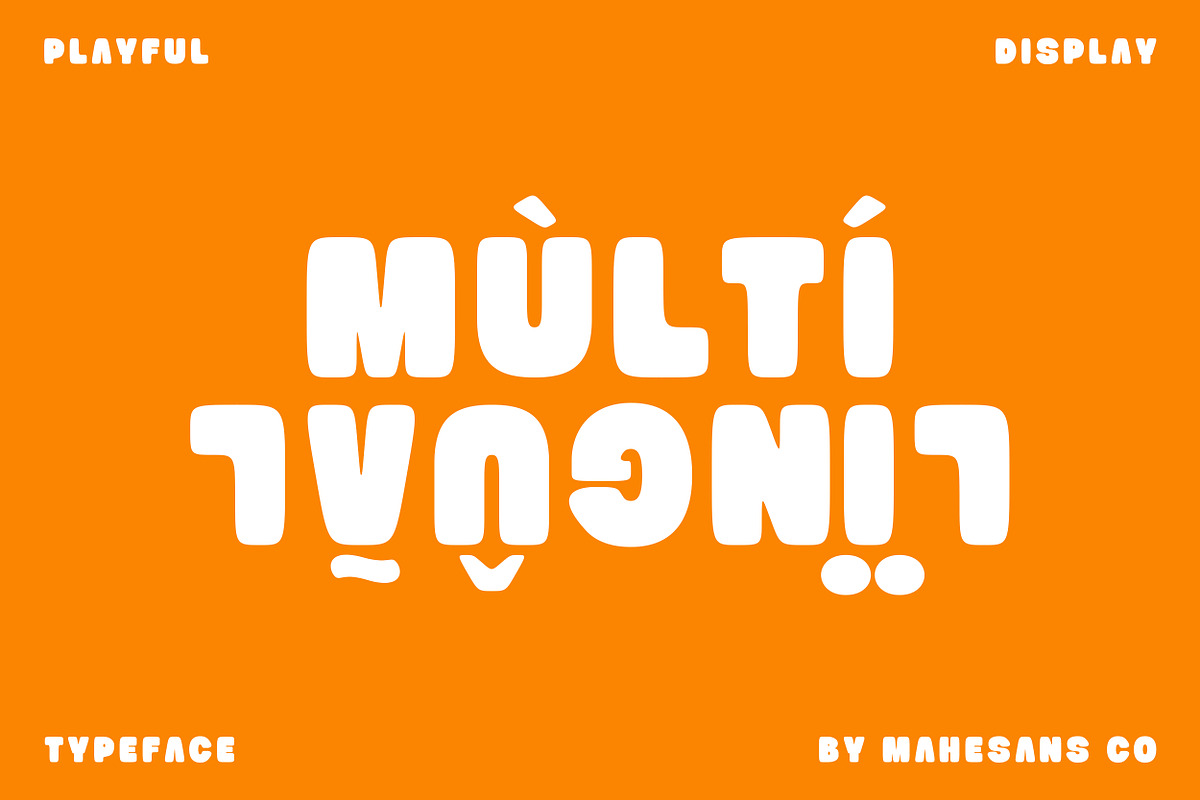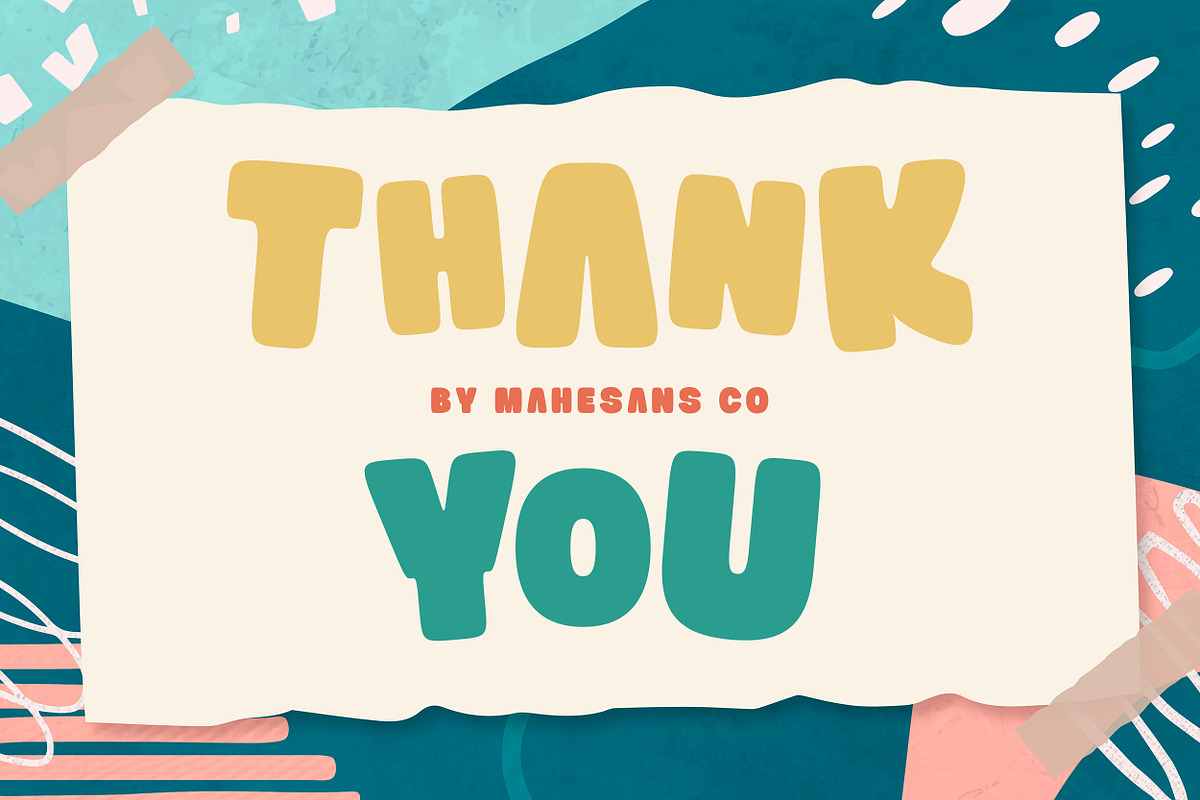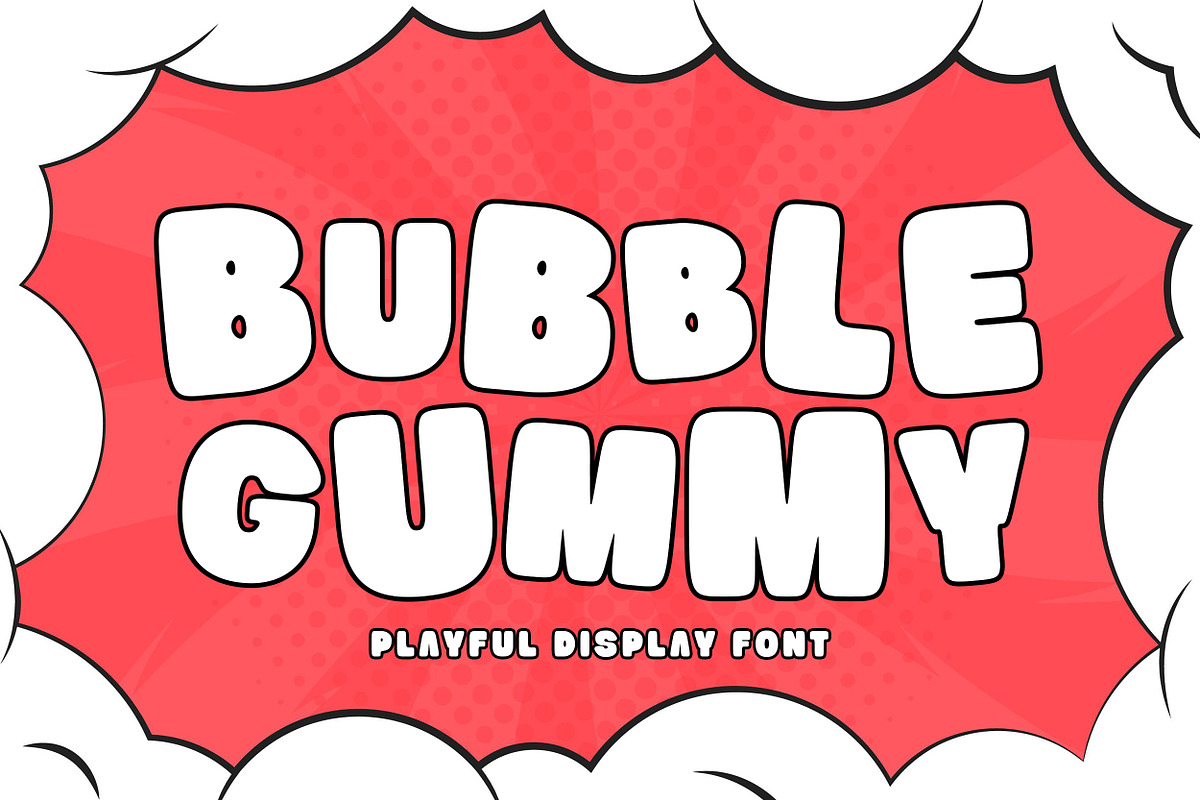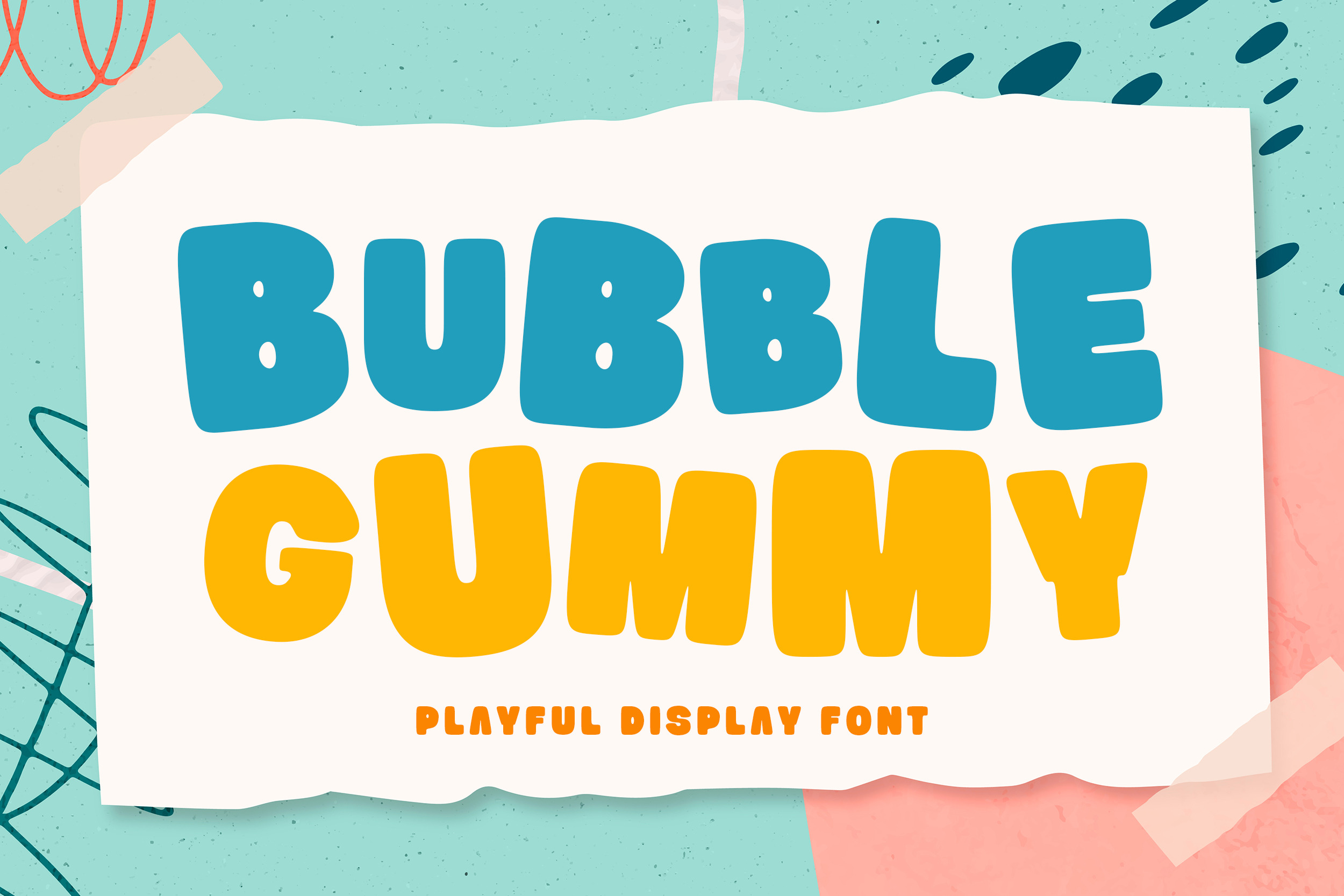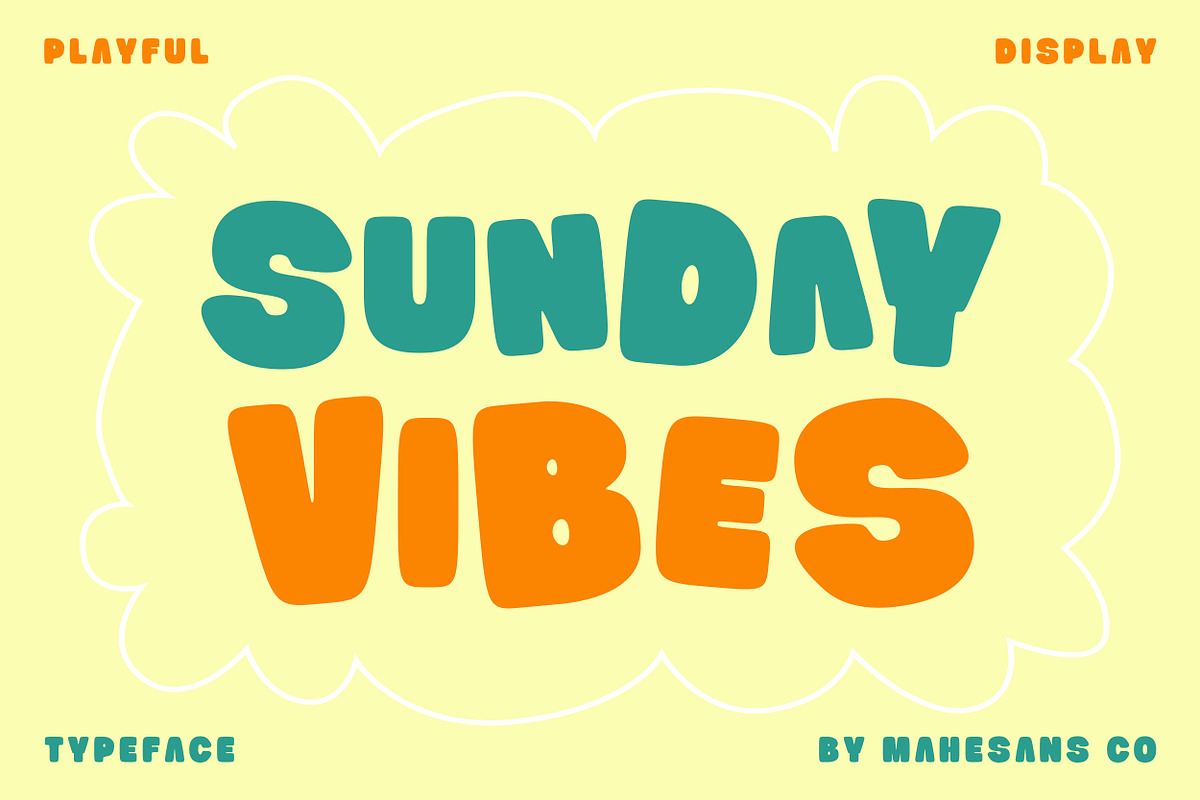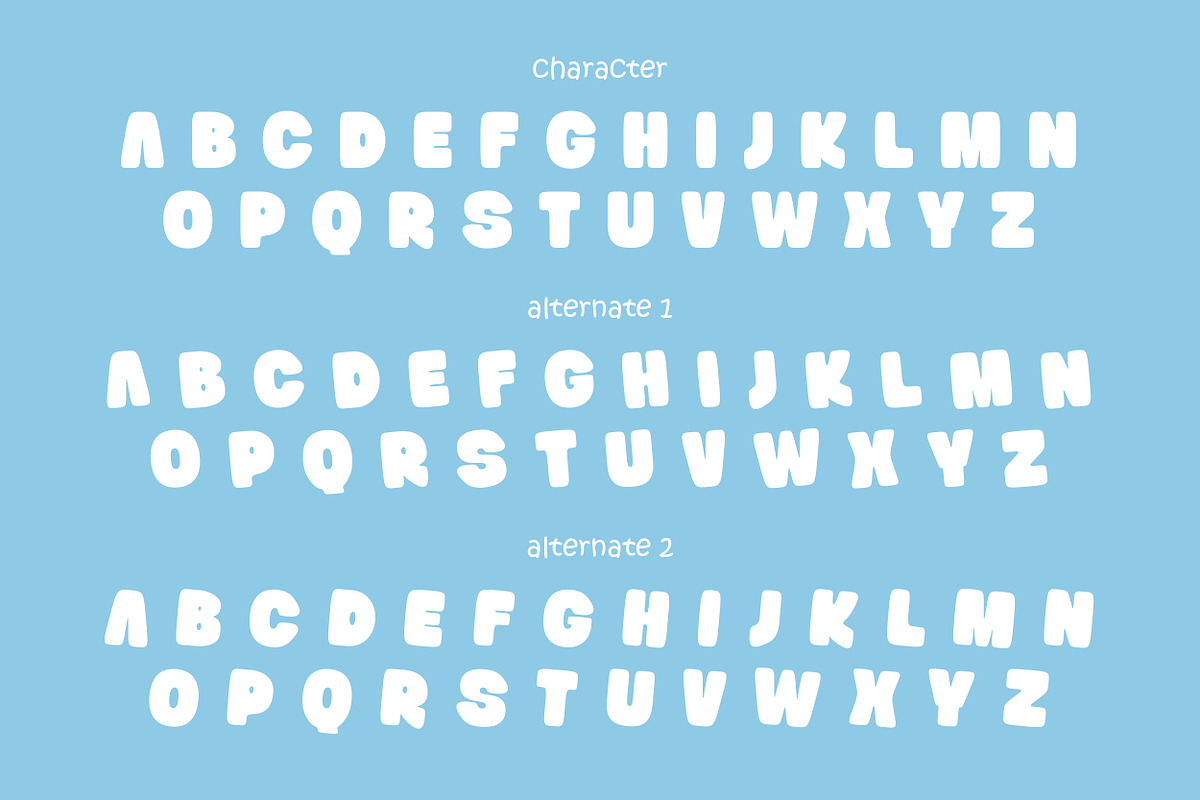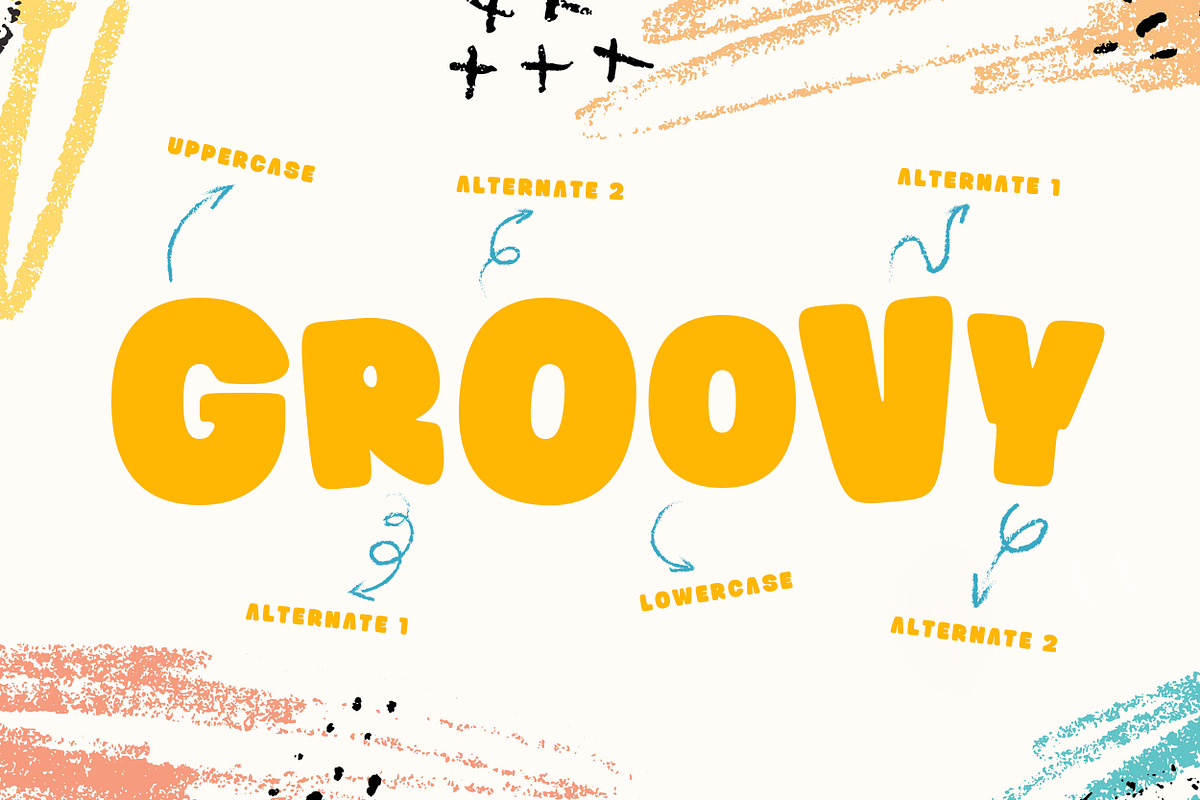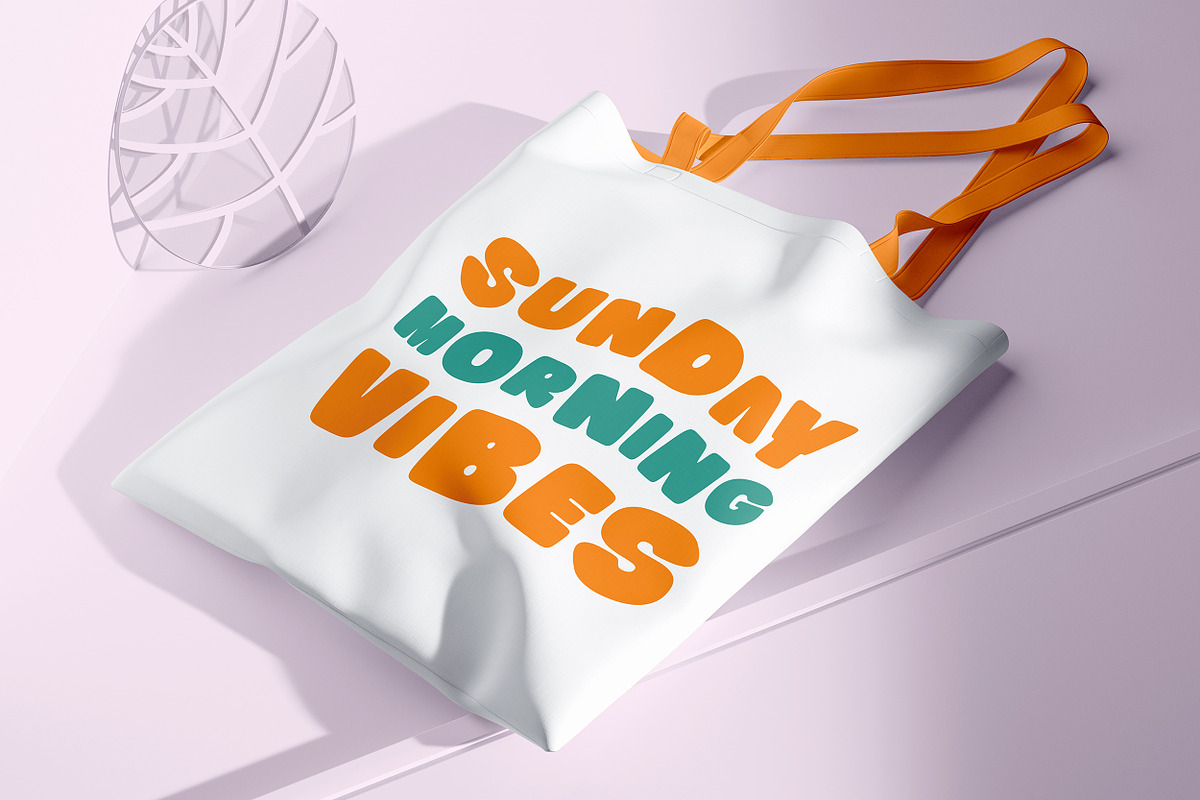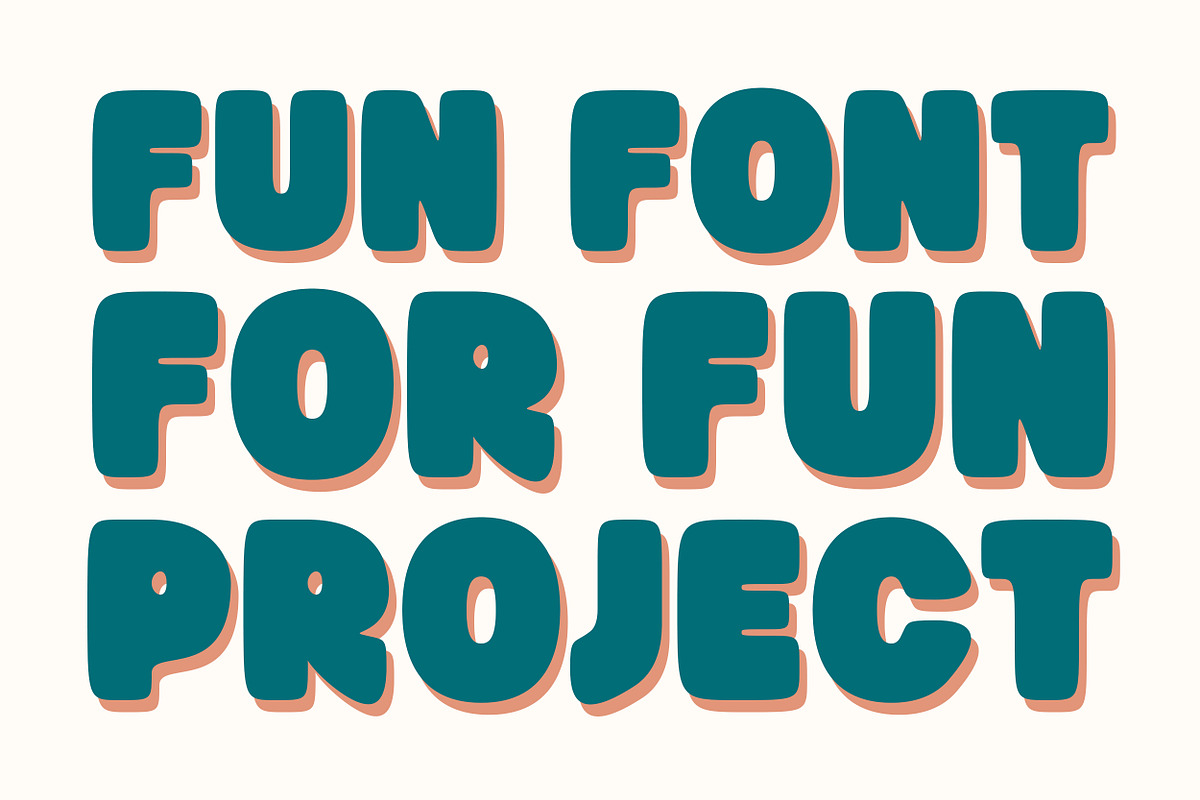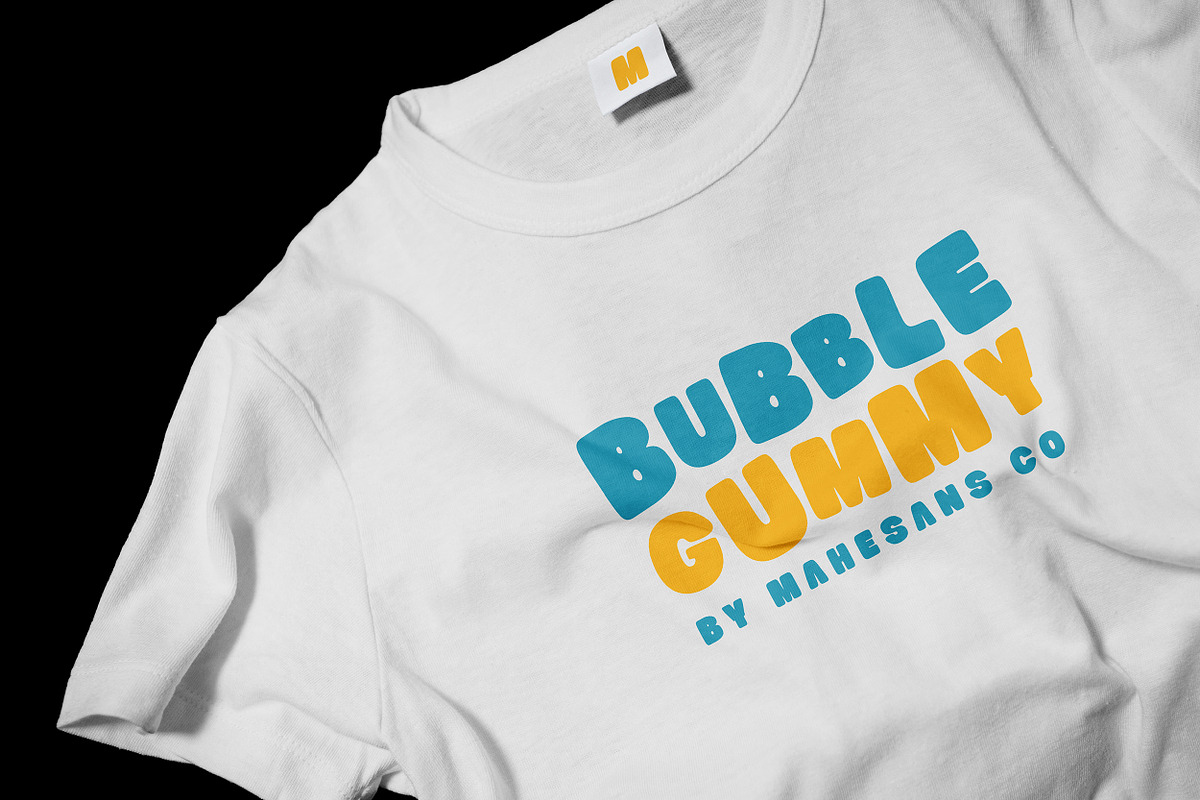
Bubble Gummy | Playful Display Font
Bubble Gummy is a bold and fun display font with a cheerful vibe. Its rounded, chunky letters make it perfect for kids’ projects, toys, packaging, posters, and playful branding.
The font includes uppercase, lowercase, and alternates for more creative flexibility. Great for logos, book covers, social media, or any design that needs a friendly and eye-catching style.
Bring more fun to your designs with Bubble Gummy!
- Numberial & Punctuation
- Multilanguage